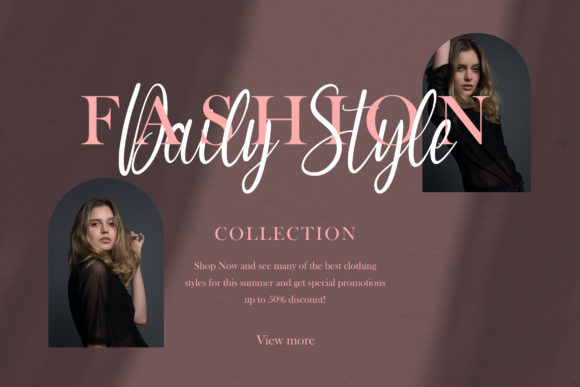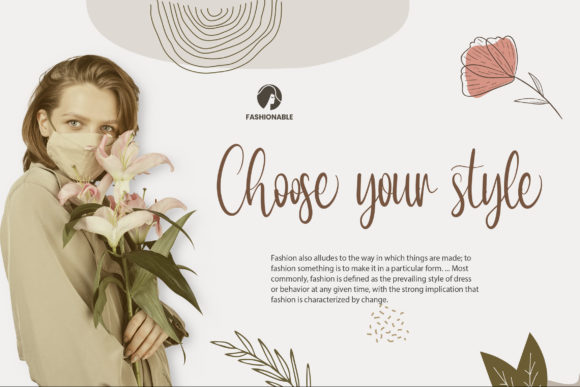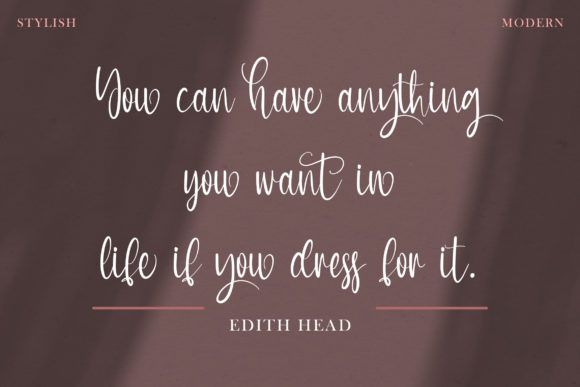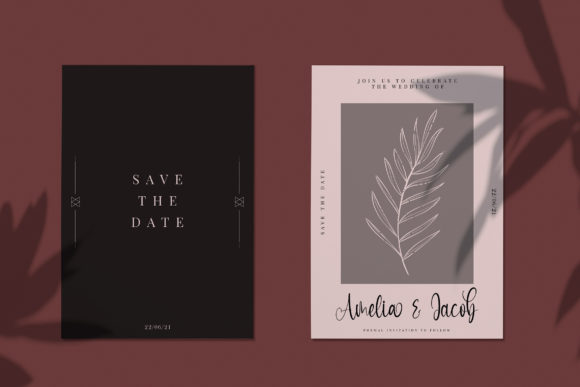
About Austyn Font
Austyn is a fashionable and asymmetrical script font. No matter the topic, this font will be an incredibly asset to your fonts’ library, as it has the potential to elevate any creation.